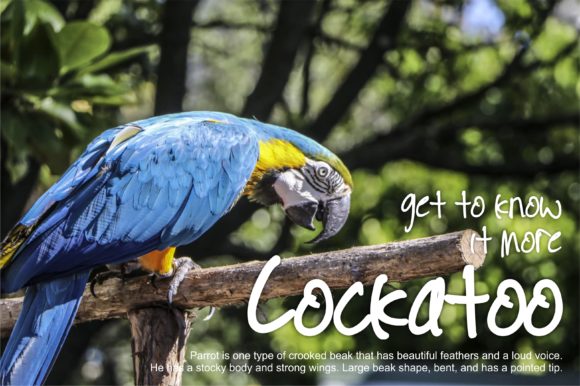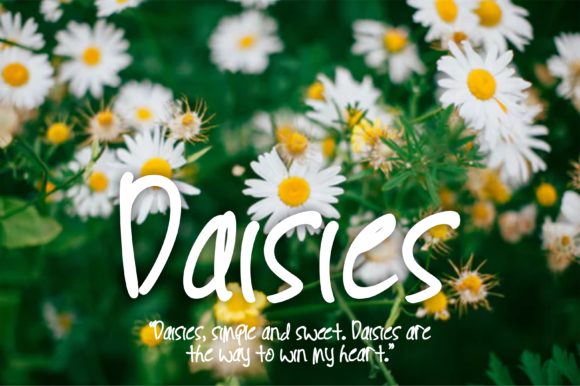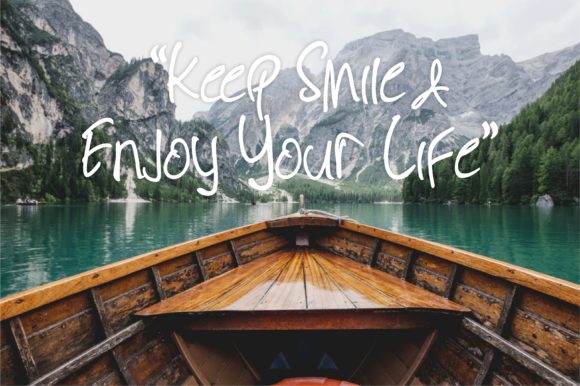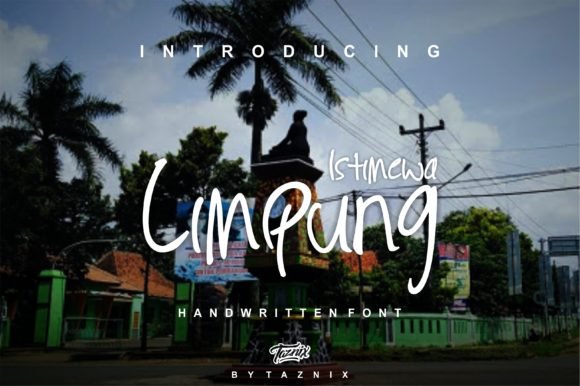
Introduction to Limpung Font
Limpung is a fun and playful script featuring gorgeous letters.
Get inspired by its timeless charm .
Key Features of Limpung Font